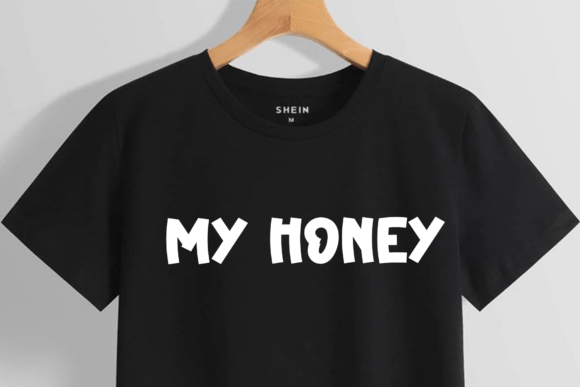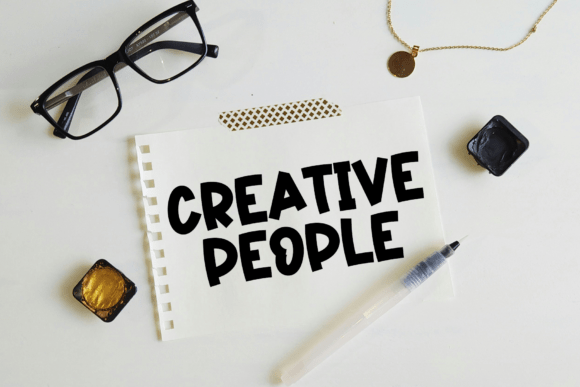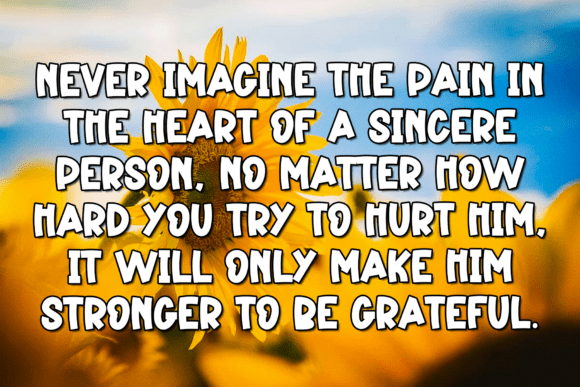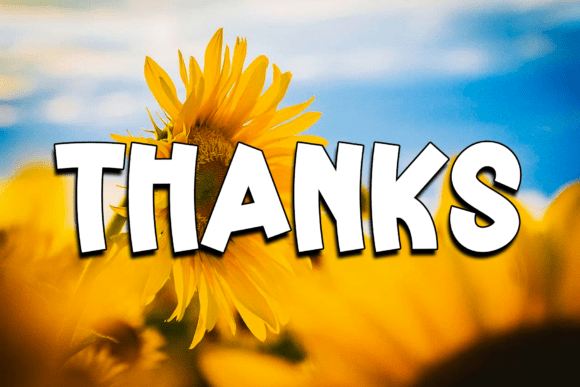
Introduction to Outside Summer Font
Have you ever stumbled upon the perfect font for your creative project, and suddenly, everything falls into place? For designers, this moment is pure magic. It’s the thrill of discovering a font that not only elevates your design but also tells a story. For me, that moment arrived when I laid eyes on the Outside Summer Font. Its clean lines, subtle rounded edges, and balanced letterforms immediately caught my attention.
This beautiful font is more than just a pretty face; it’s a design resource that offers a perfect blend of simplicity and approachability. Whether you’re working on a branding project, crafting headlines, or creating packaging, the Outside Summer Font is an excellent choice. With its crisp structure and versatile style, it adds a touch of warmth and charm to any design, making it a valuable asset for designers.
Key Features of Outside Summer Font
- Includes a variety of characters, including uppercase and lowercase letters, numbers, and punctuation marks, making it suitable for a wide range of creative projects.
- Unique characteristics include a playful and carefree feel, making it perfect for summer-themed projects, outdoor designs, and creative endeavors.
Honest Review: Outside Summer Font
I recently had the chance to work with the Outside Summer Font, and I must say it’s a unique addition to any design project. This free download is perfect for those looking for a high-quality font that adds a touch of whimsy to their work.
What works well: ✨ The Outside Summer Font has a transparent background, making it easy to use on any design surface. The font itself is highly customizable, with a range of weights and styles to suit any creative project. The design is playful and eye-catching, making it perfect for branding and advertising materials.
Limitations: ⚠️ While the font is high-quality, it may not be suitable for formal or professional projects. The design is quite bold and may not be suitable for those who prefer a more subtle look. Additionally, the font may not be compatible with all operating systems or software.
Overall, I’m impressed with the Outside Summer Font. It’s a great design resource for those looking to add some personality to their work. While it may not be perfect for every project, it’s definitely worth considering for your next creative project.
- Perfect for: branding, advertising, and creative projects
- Not suitable for: formal or professional projects
For the best results, use the Outside Summer Font in conjunction with other design elements that complement its playful and casual style. Experiment with different font sizes, colors, and arrangements to find the perfect look for your project.
The Outside Summer Font is ideal for a variety of design projects, including social media graphics, posters, flyers, and other promotional materials. It’s also great for creating custom logos, business cards, and other branding materials.